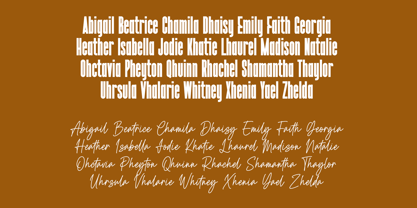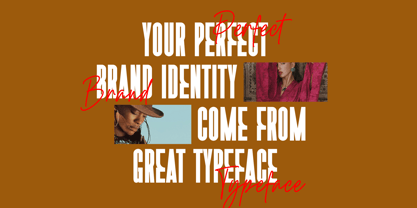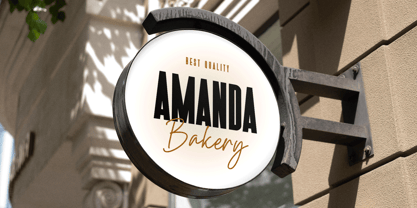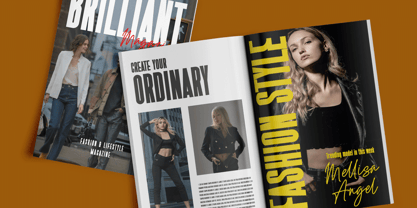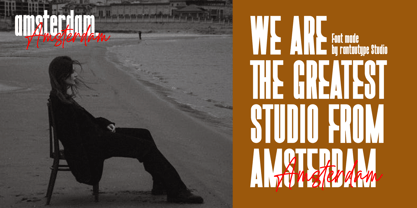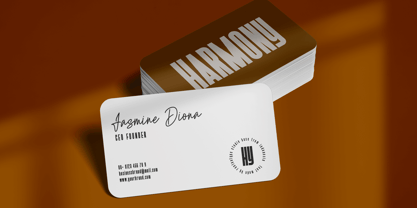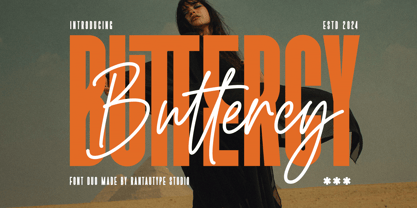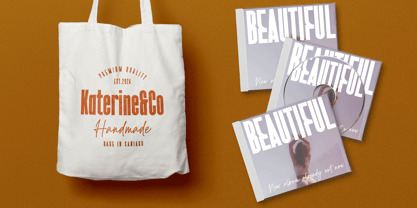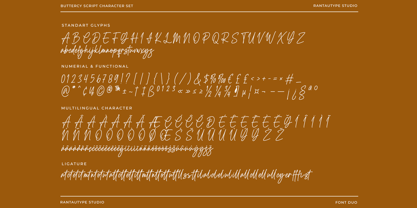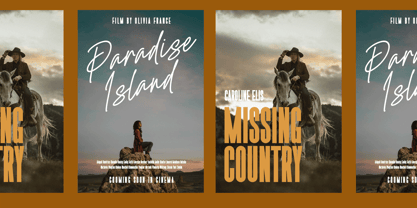
Buttercy
by RantauType
The Buttercy Font Family was designed by Yudi Pratama Chandra and published by RantauType. Buttercy contains 2 styles and family package options. More about this family
Buttercy is perfect combination sans serif with script font. Buttercy bring elegant sans and flowless script to make you brand or design project stand out!
Buttercy is a perfectly choice for any creative endeavor, chic, lifestyle design such as logotype, advertisements, watermark on photography, stationery, branding project, display and magazine, invitation, corporate brand, product design, label, business project and many other project with modern and elegant touch.
Fonts include Multilingual Character for: Afrikaans, Albanian, Asu, Basque, Bemba, Bena, Breton, Chiga, Cornish, Dutch, English, Estonian, Filipino, Finnish, Friulian, Galician, Gusii, Indonesian, Irish, Italian, Kabuverdianu, Kalenjin, Kinyarwanda, Luo, Luxembourgish, Luyia, Machame, Makhuwa-Meetto, Makonde, Malagasy, Manx, Morisyen, North, Ndebele, Nyankole, Oromo, Portuguese, Quechua, Romansh, Rombo, Rundi, Rwa, Samburu, Sango, Sangu, Scottish, Gaelic, Sena, Shambala, Shona, Soga, Somali, Spanish, Swahili, Swedish, Swiss, German.